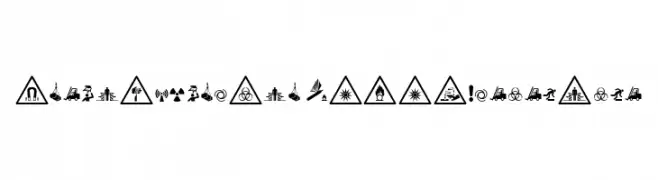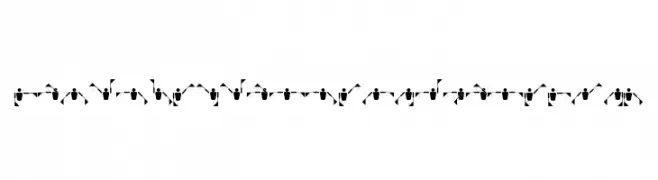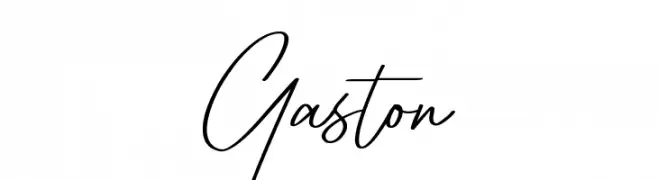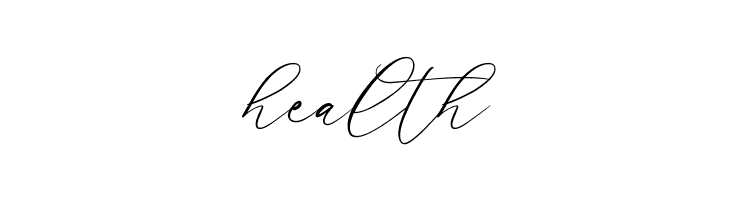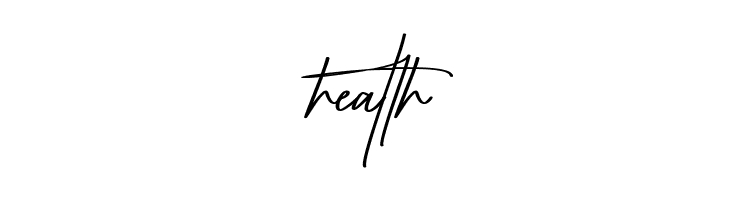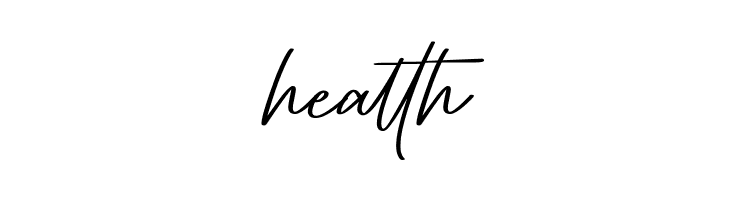
A graceful, cursive script font with elegant loops and swashes.
Standardized warning sign pictograms with bold, simplified icons.
A semaphore flag-inspired font with figures holding flags to represent characters.
A lively handwritten font with elegant, flowing characters and medium contrast.
Elegant handwritten script font.